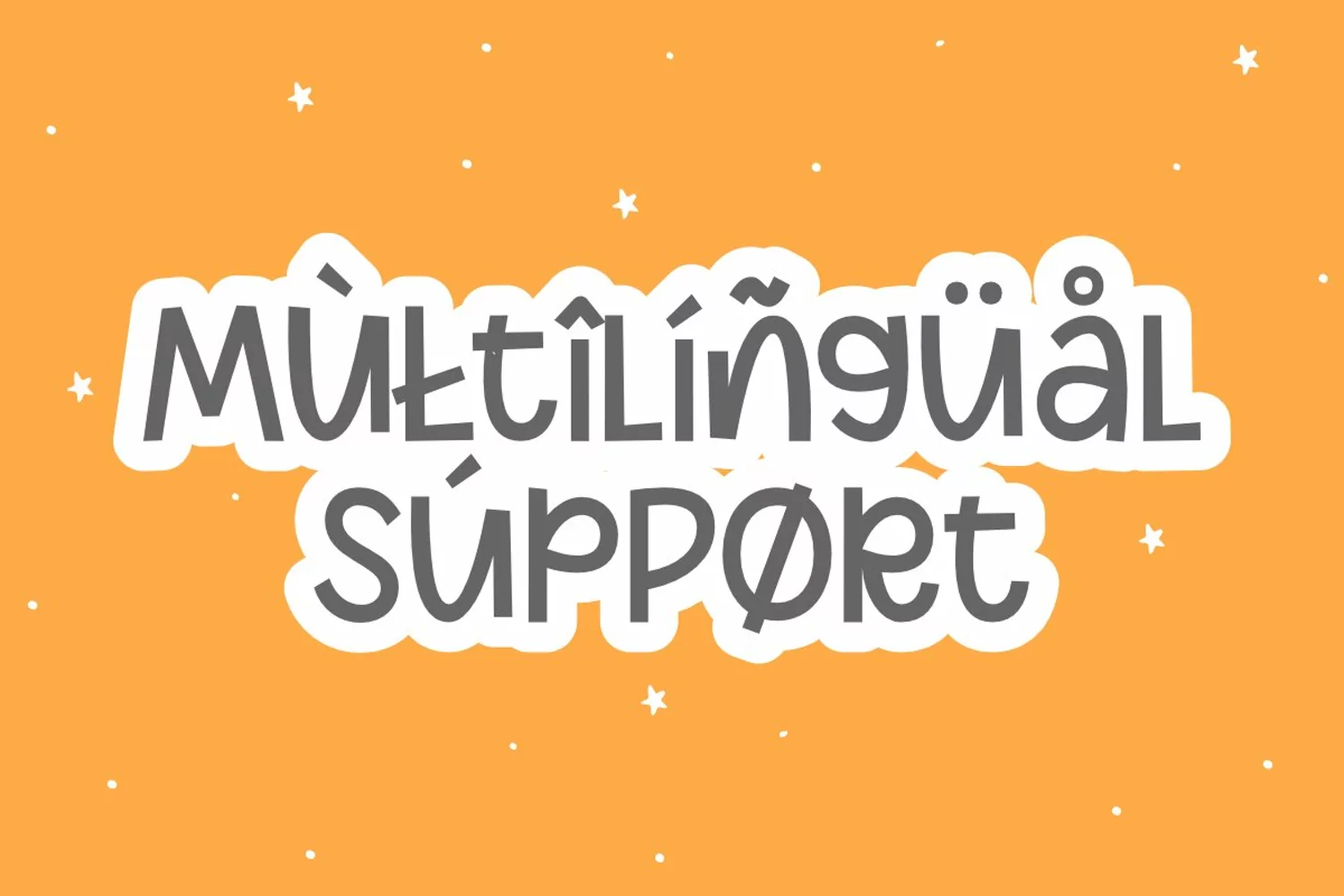
Sugar Cake a Handwritten Display Font
This fonts is ideal for crafting, branding and decorate your any project. This fonts are perfect for wedding invitation or your blog. Also with their help, you can create a logo or beautiful frame for your home. Or just use for your business, book covers, stationery, marketing, magazines and more.